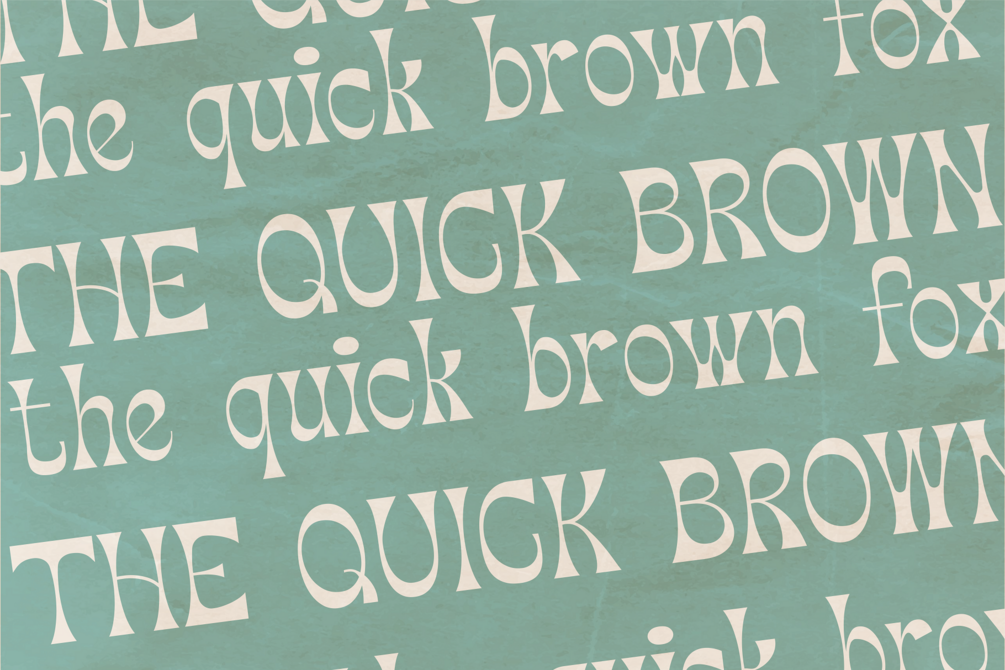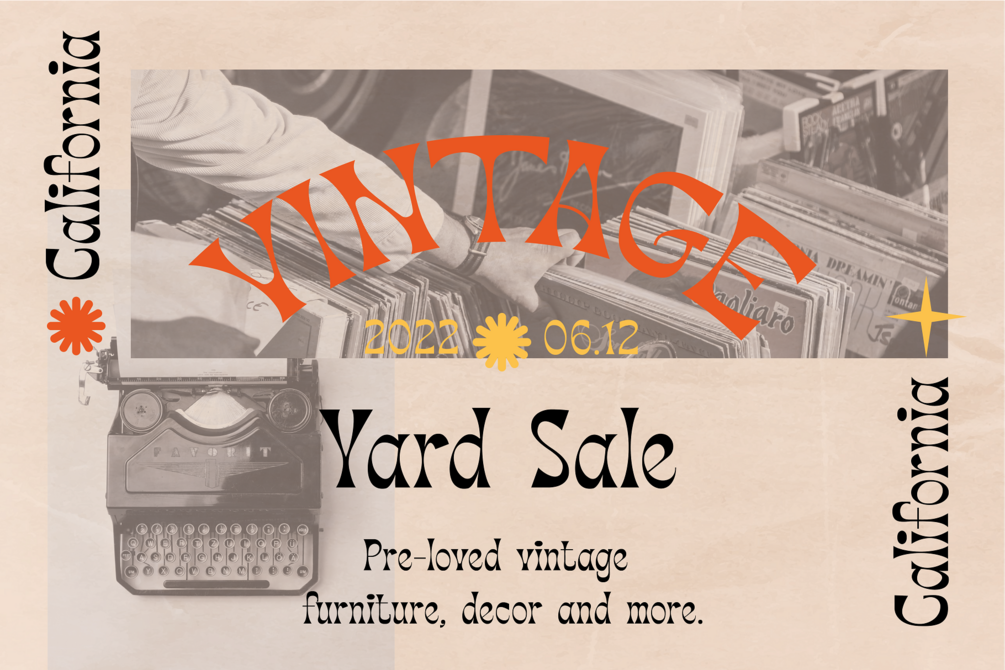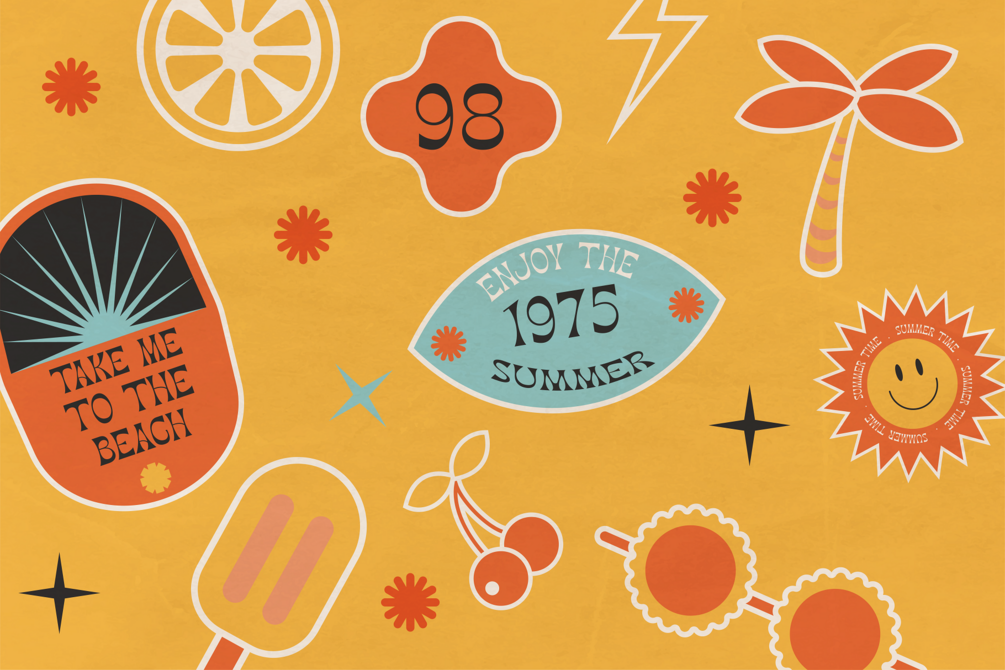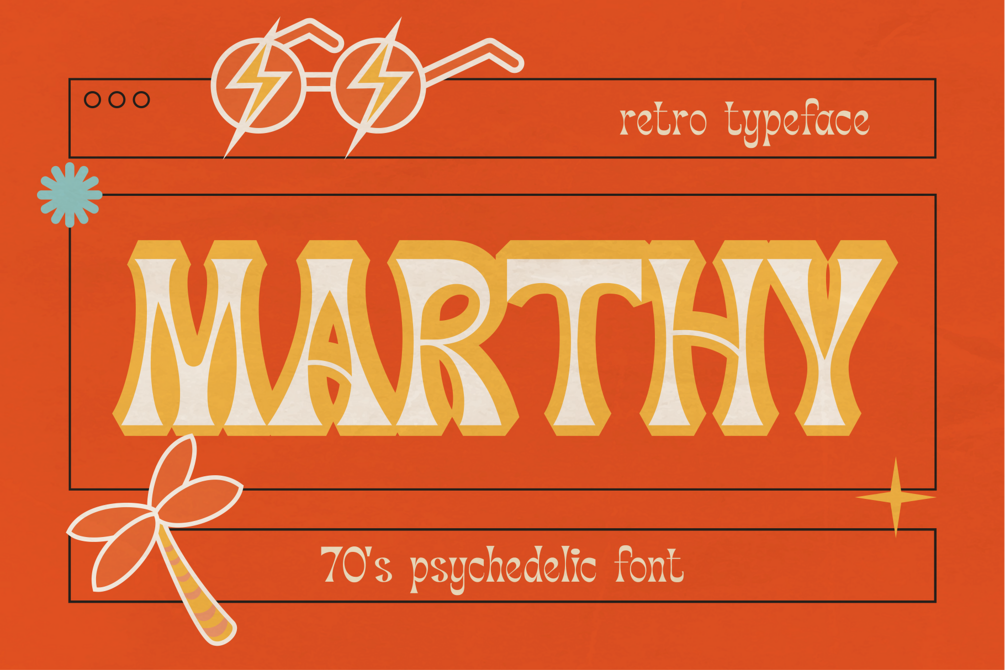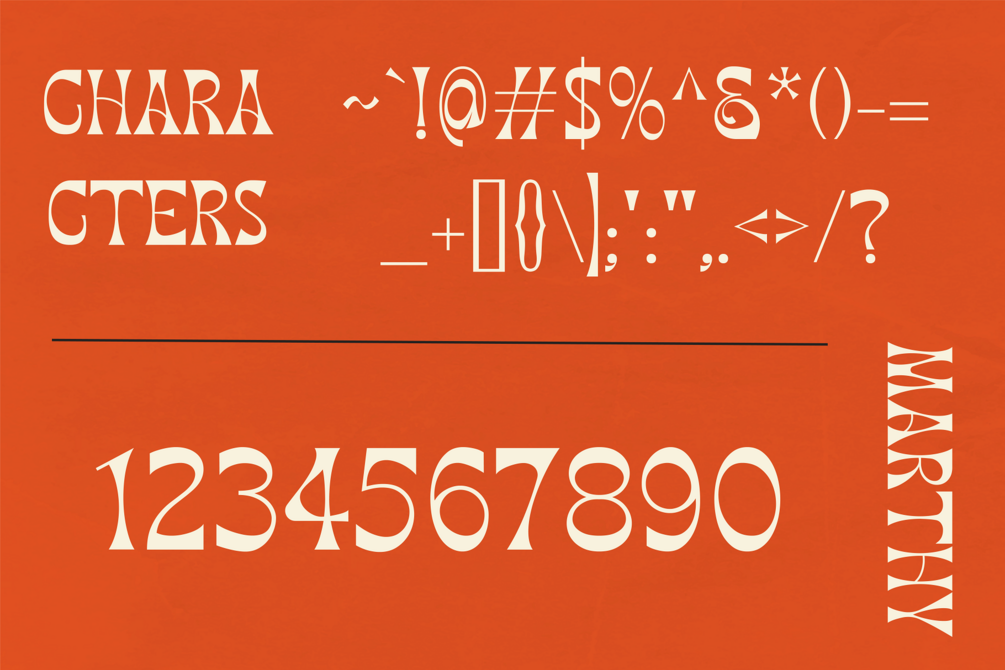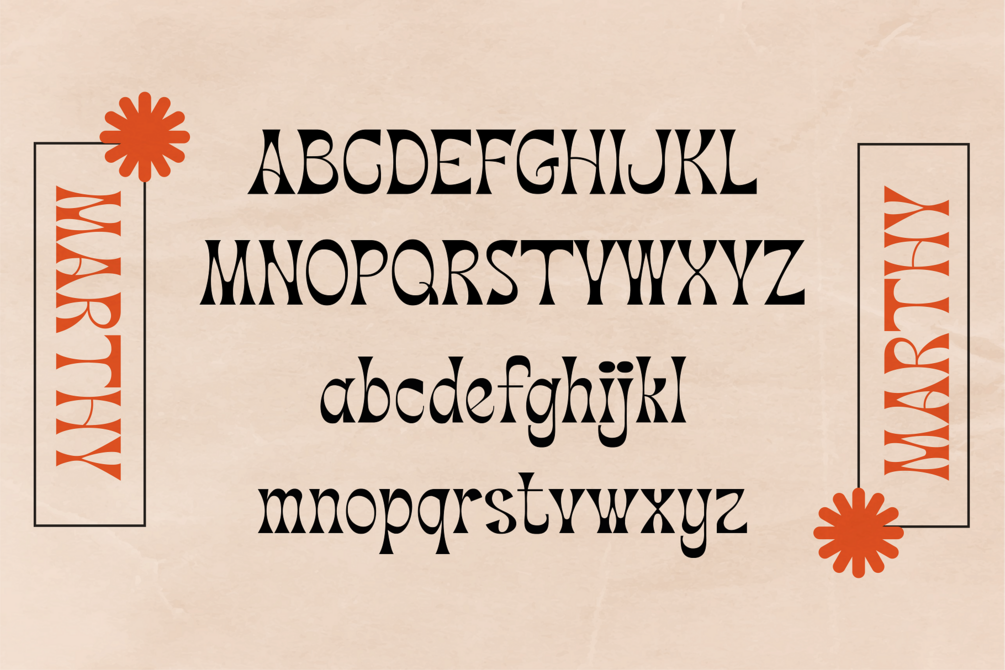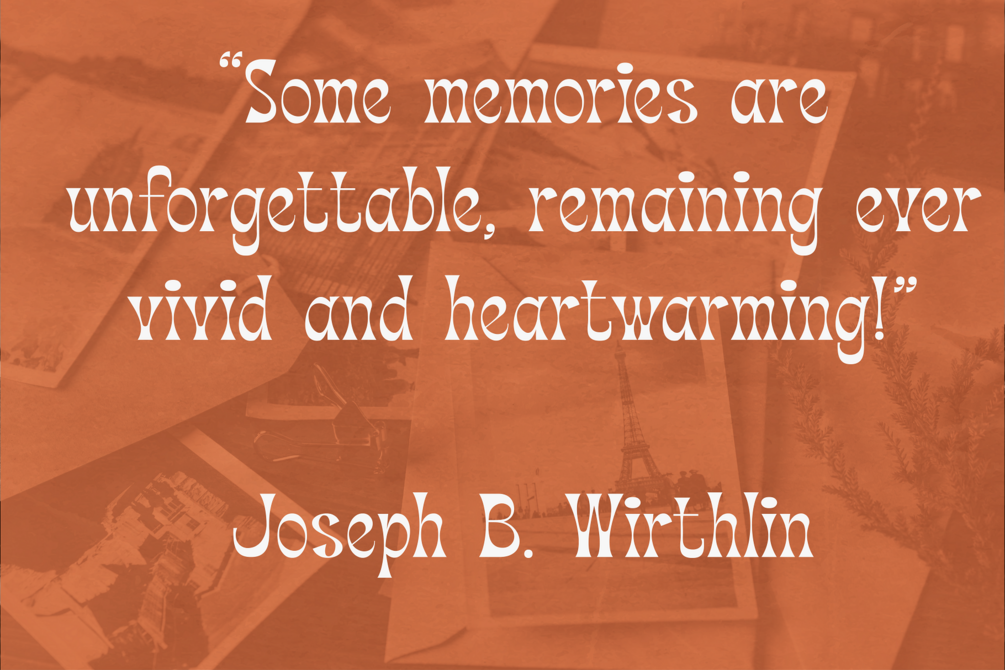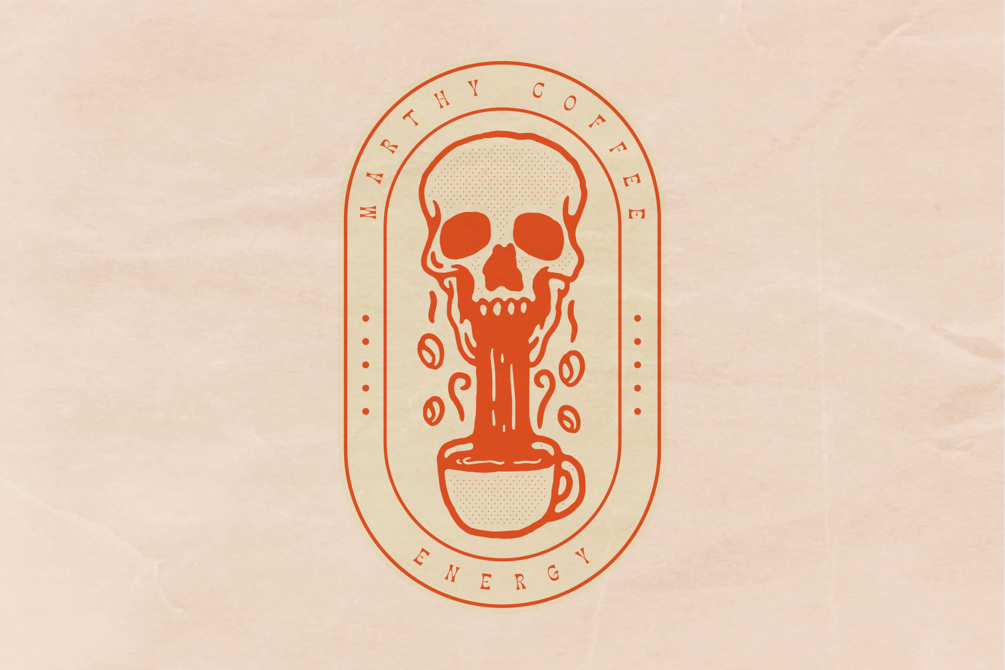
Marthy - Psychedelic Retro Display
Marthy was inspired by Art Nouveau and 1970’s psychedelic posters. This expressive typeface is designed to be used for branding, music posters, album graphics, book titles, etc. Evoke that nostalgic 60s/70s look today with Marthy!